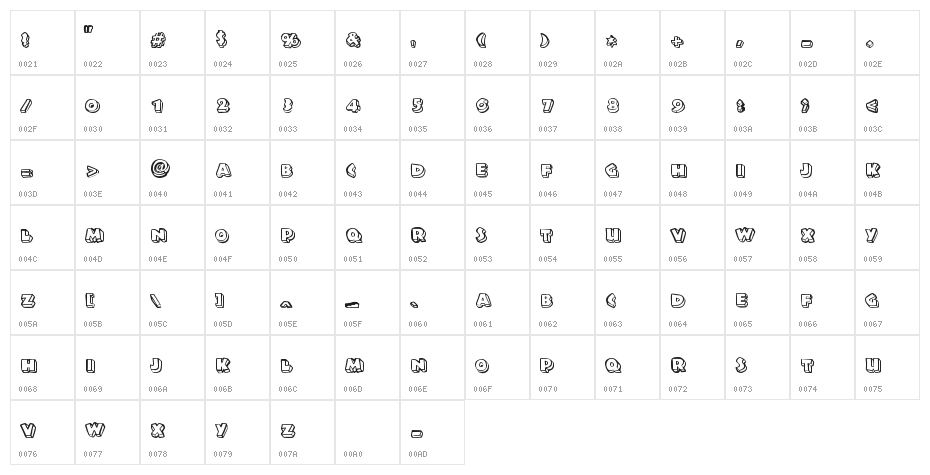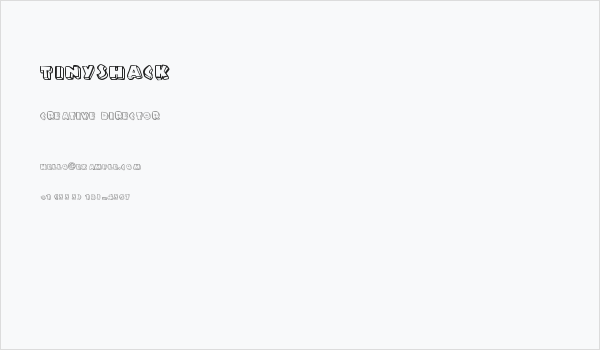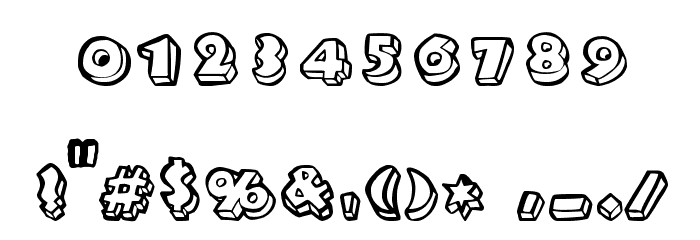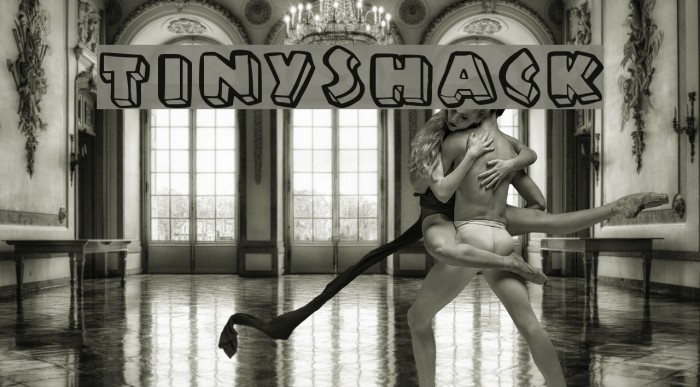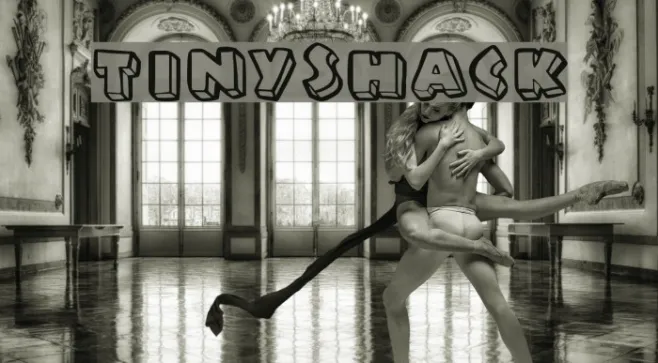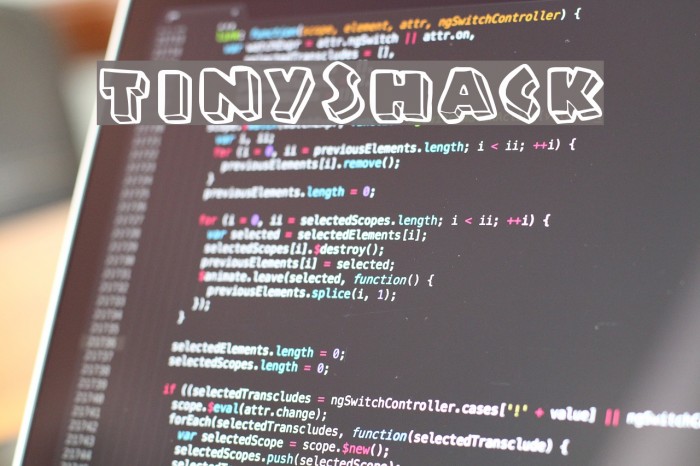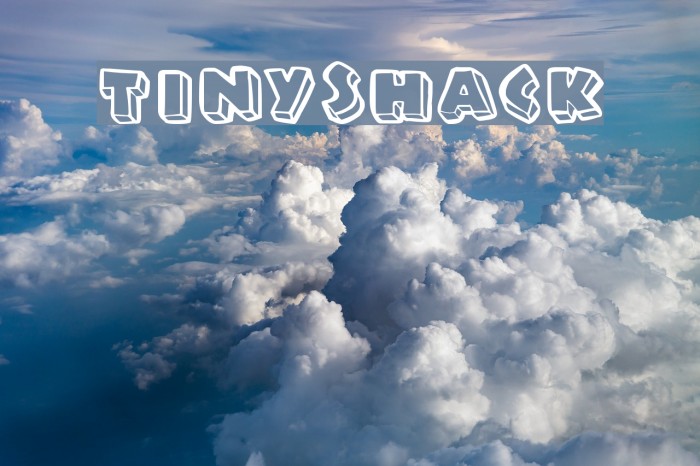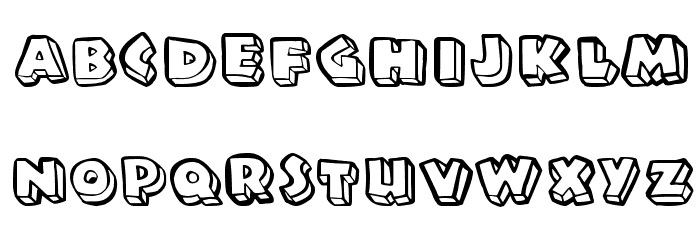
TinyShack Font
TinyShack Description
This font features a playful and bold 3D effect, with each character appearing as if it is popping out of the page. The letters are outlined with a thick black border, giving them a cartoonish and dynamic appearance. The interior of each character is white, enhancing the contrast and making the font highly legible despite its decorative style. The font includes both uppercase and lowercase letters, numbers, and a variety of special characters, all maintaining the same whimsical and bold design. This font is ideal for projects that require a fun and eye-catching typeface.
| Proposed Projects | Ideal for children's books, comic strips, playful branding, and eye-catching posters. |